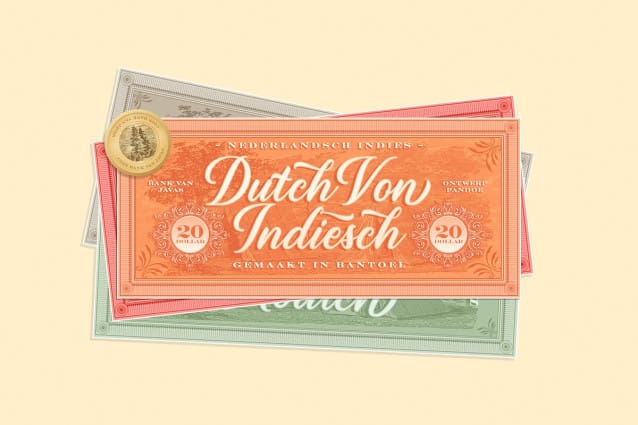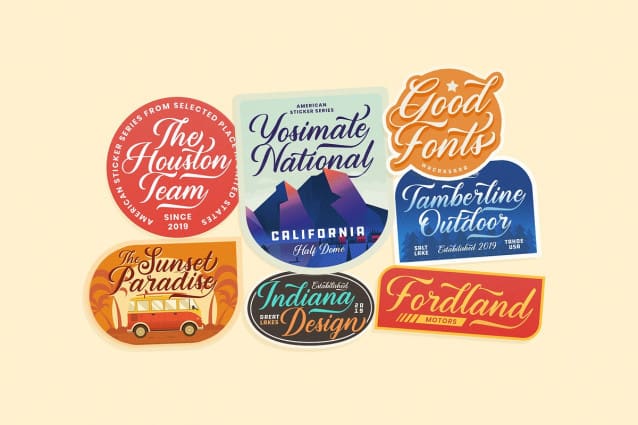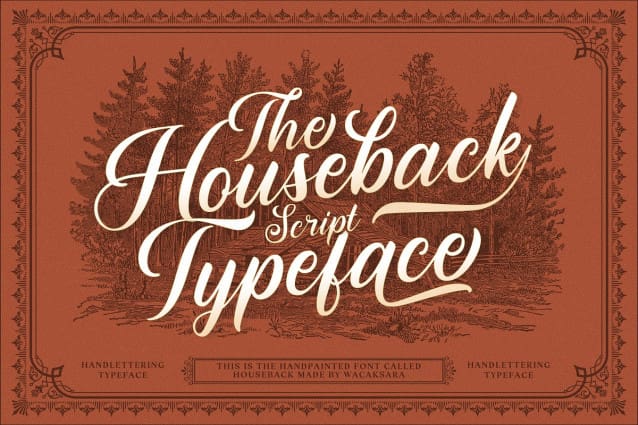
Houseback Font
Houseback Font is a calligraphy script font inspired by traditional calligraphy and sign painting. This font is great for your next creative project such as Logotype, printed quotes, invitations, cards, product packaging, headers, Letterhead, Poster, Apparel Design, Label, and etc.
Houseback Font is available with so many variations on each character in Opentype include Uppercase, Lowercase, Numerals & Punctuations, Stylistic Styles, Ligatures, Discretionary Ligatures, and Titling to make it look even more natural than a standard font.